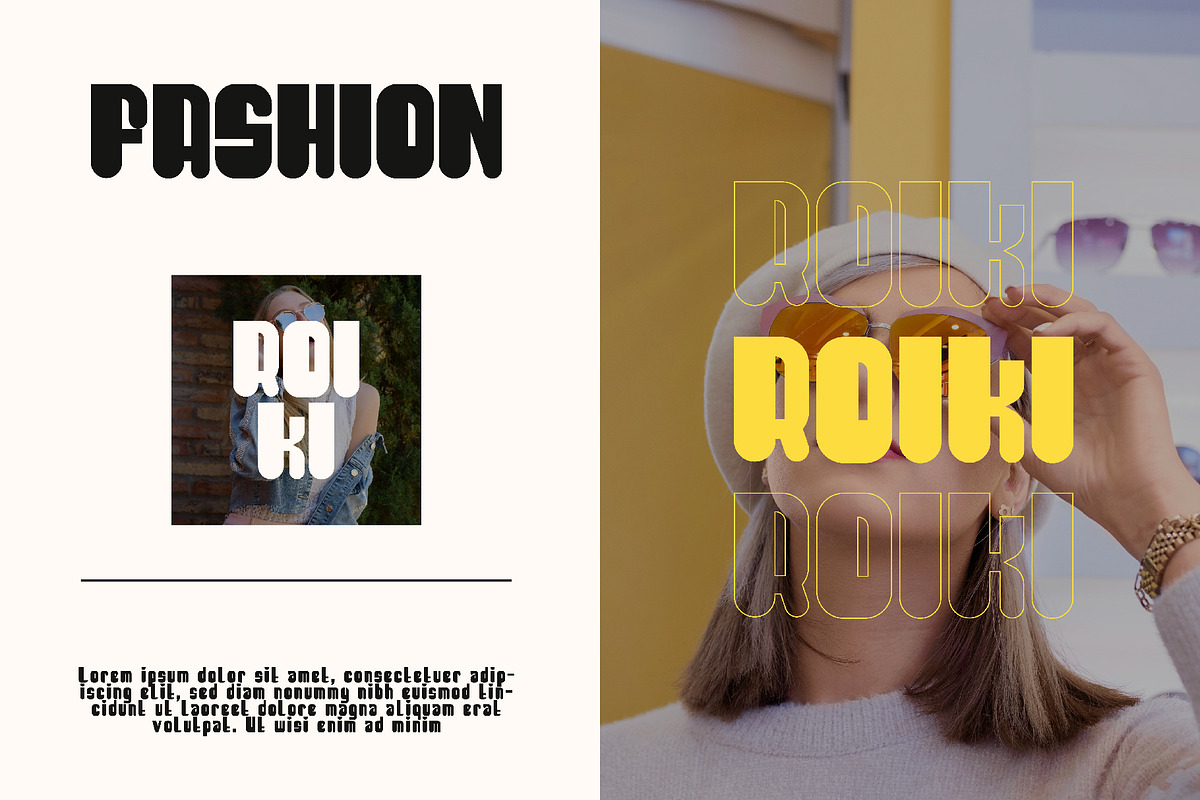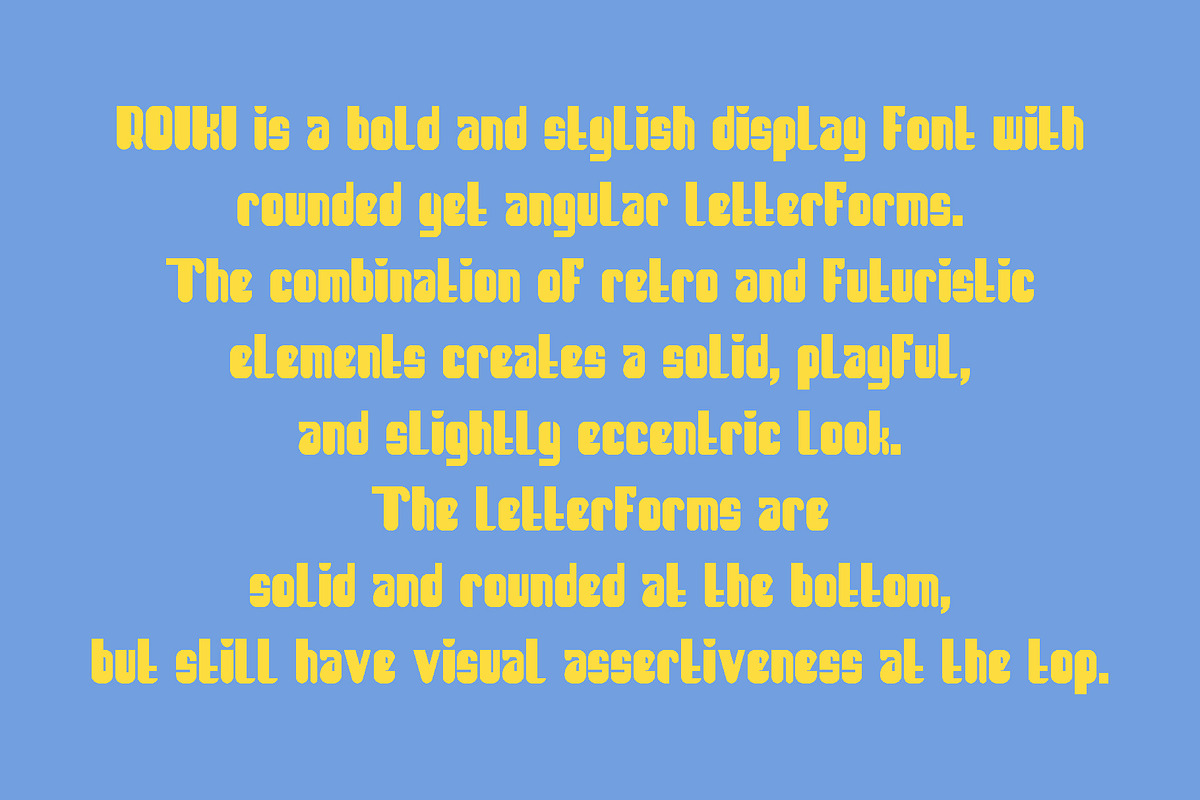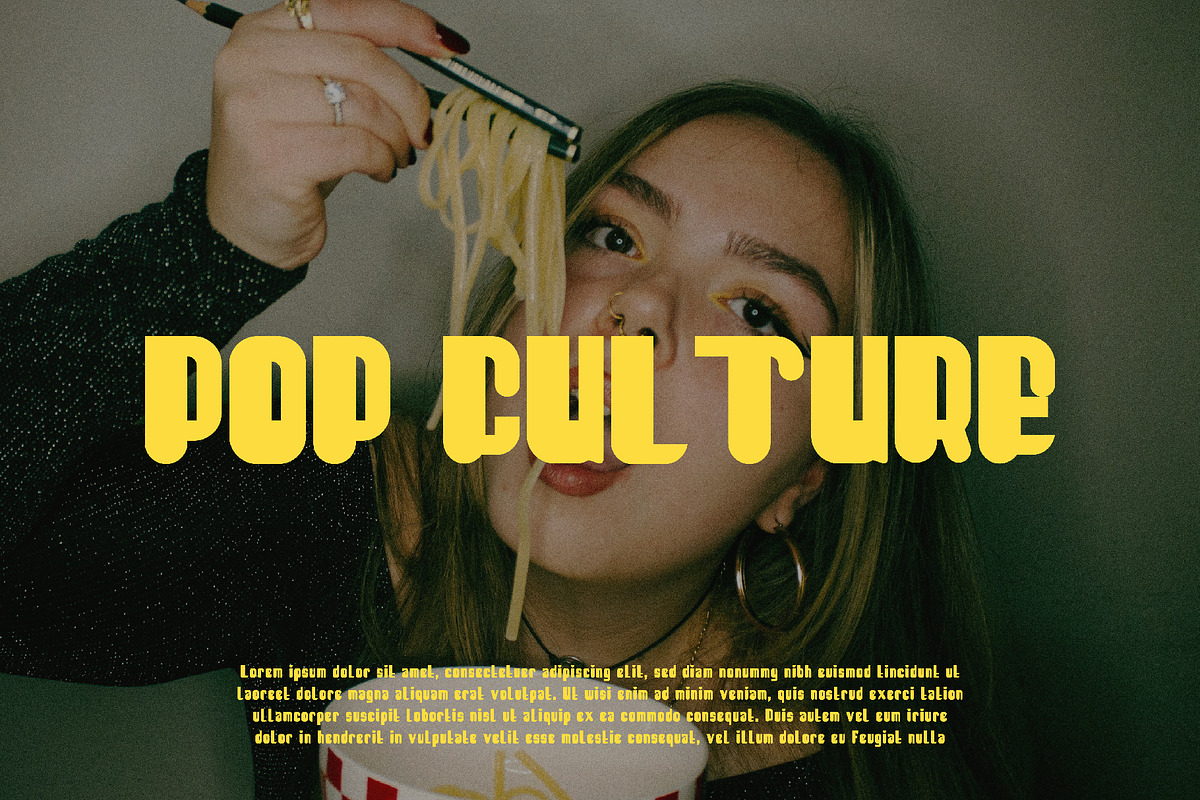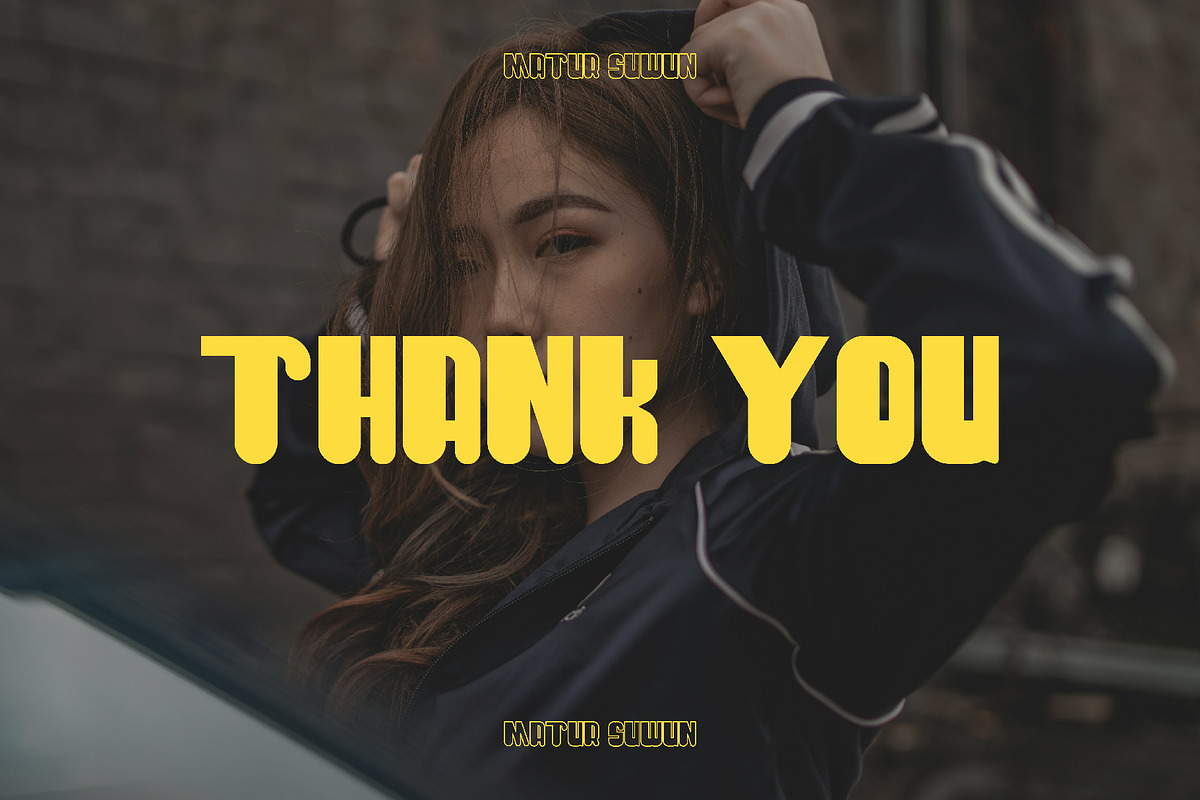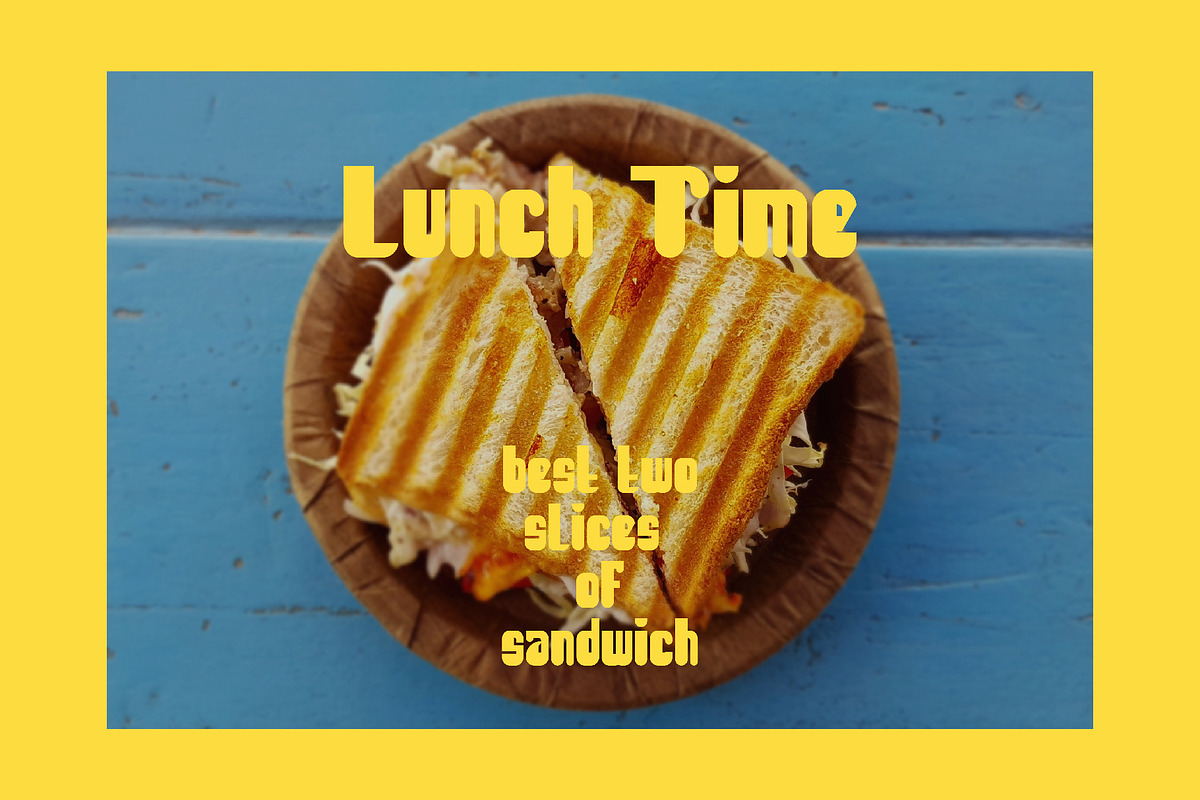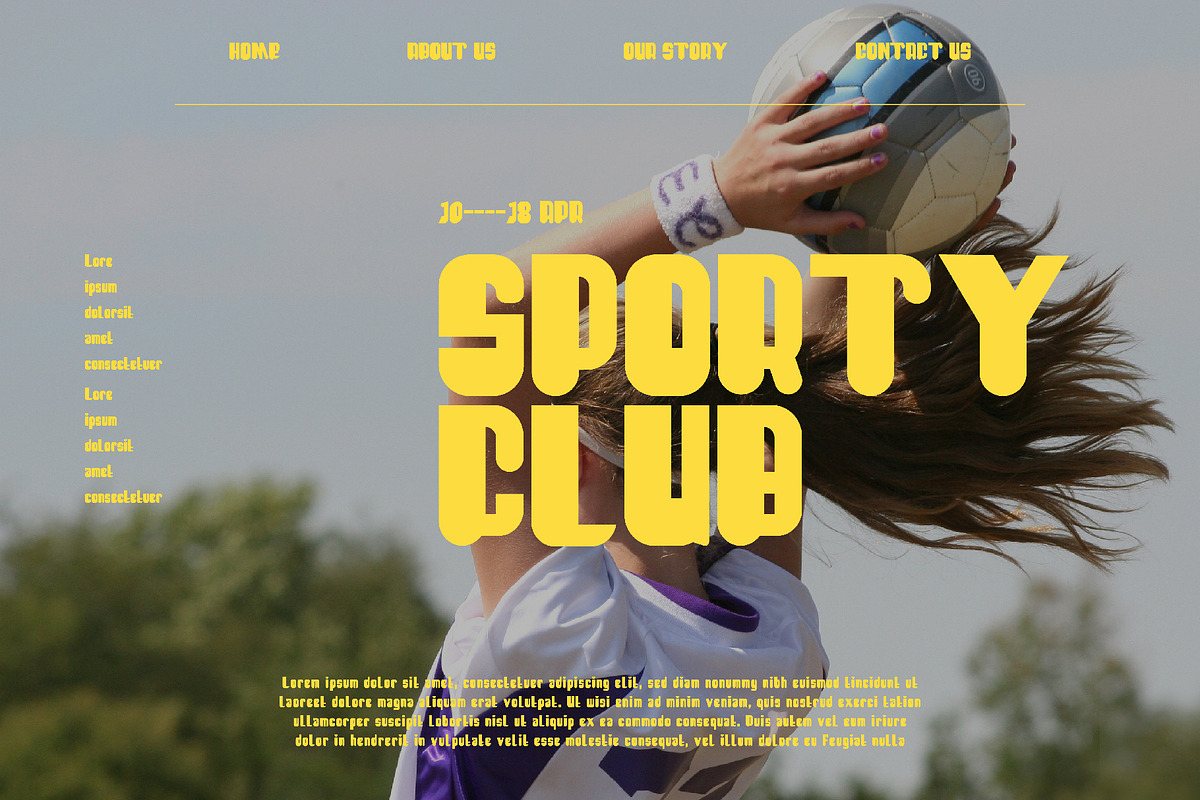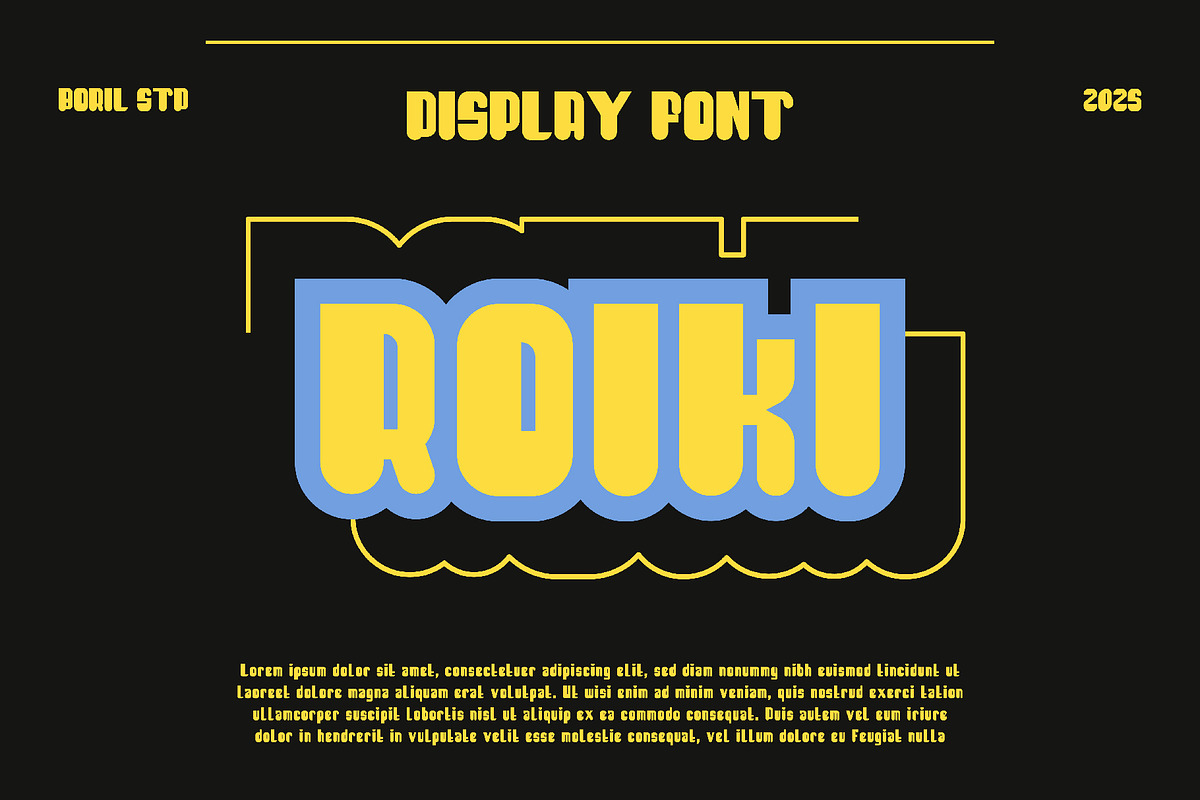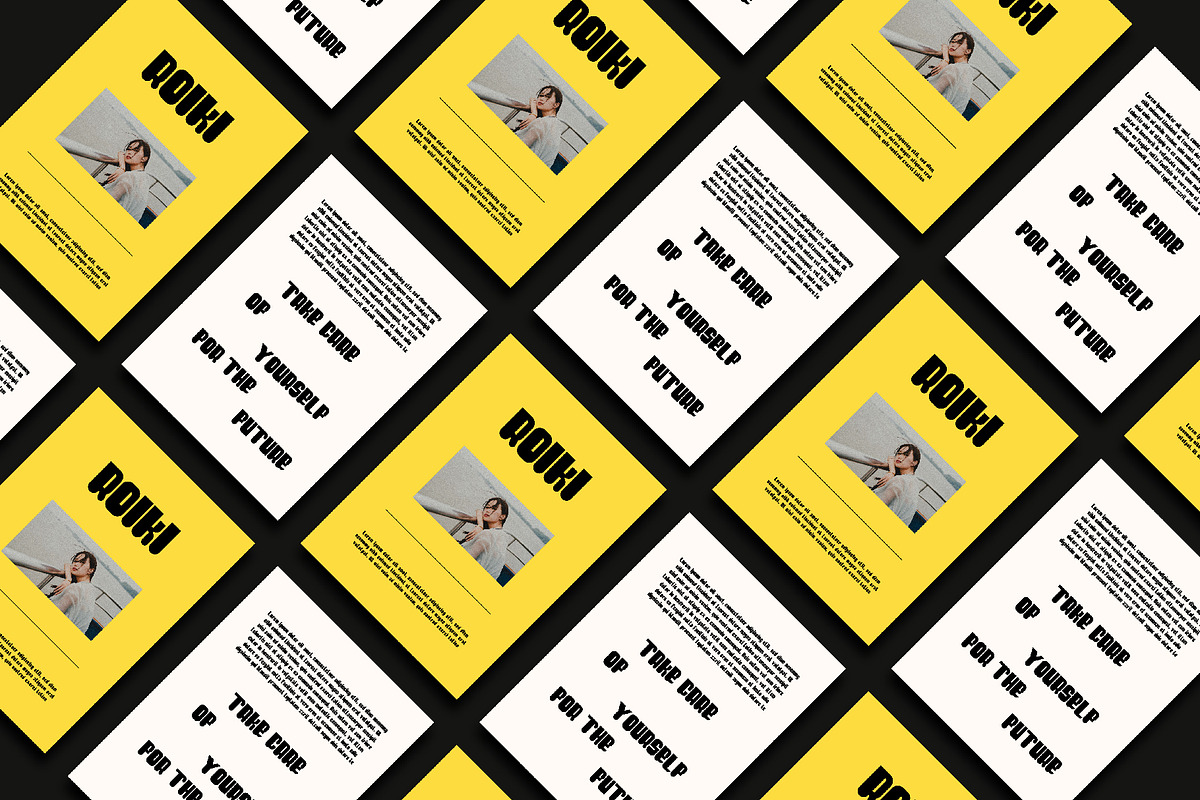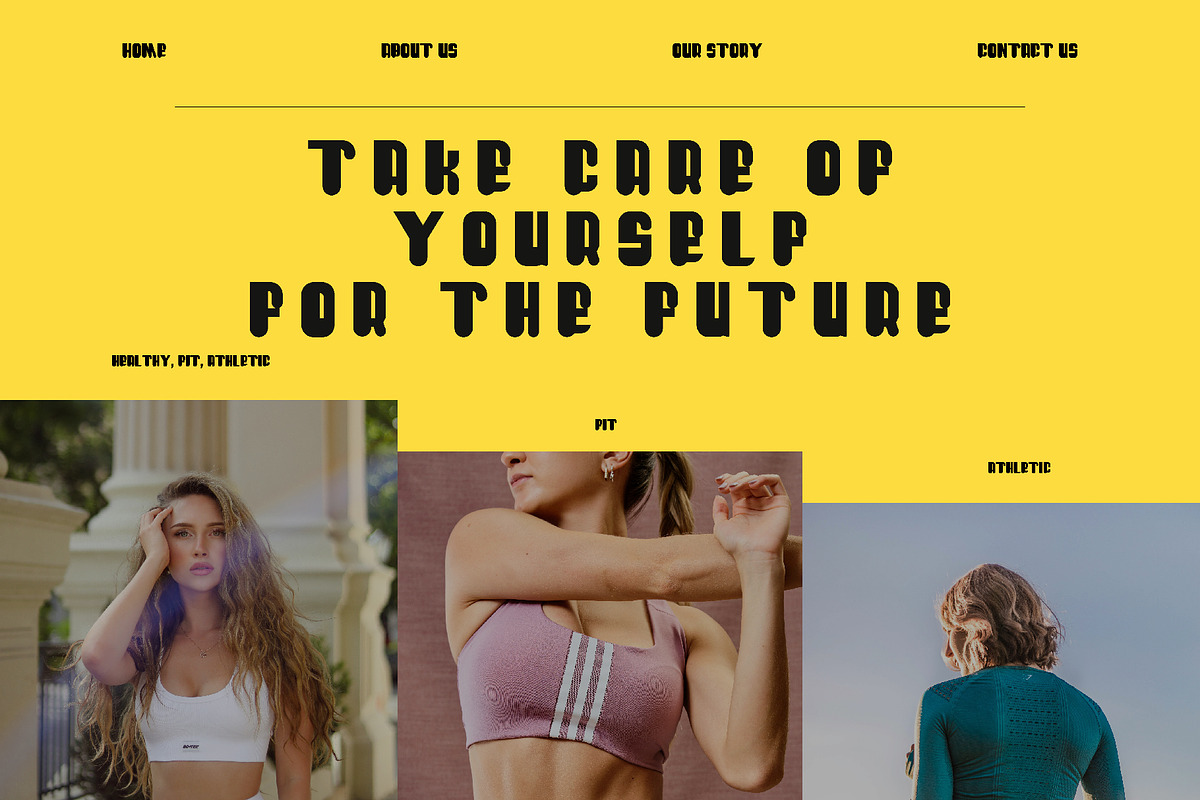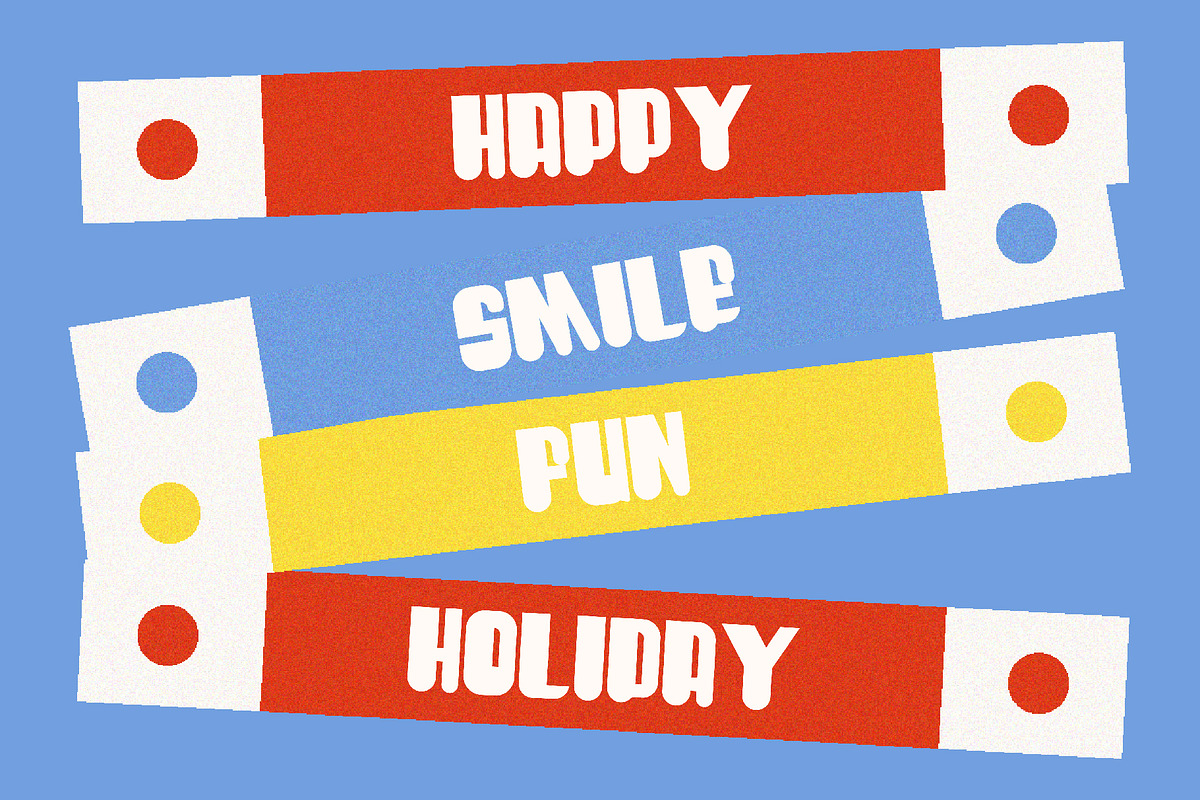
ROIKI - Sans Serif Display Font
ROIKI is a bold and stylish display font with rounded yet angular letterforms. The combination of retro and futuristic elements creates a solid, playful, and slightly eccentric look. The letterforms are solid and rounded at the bottom, but still have visual assertiveness at the top.